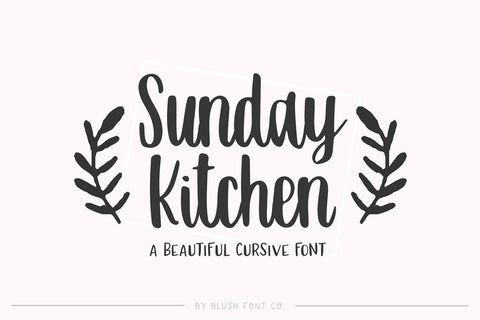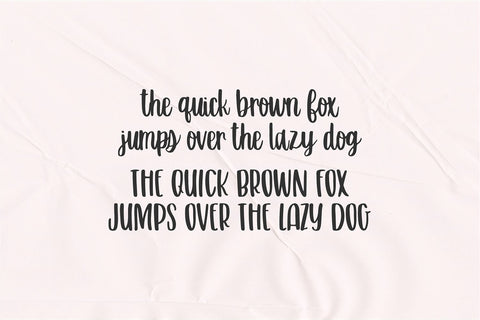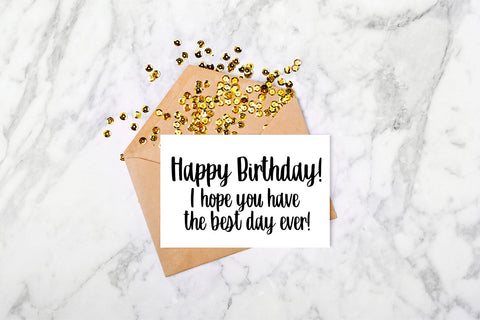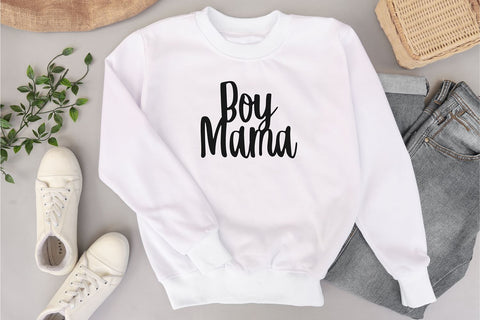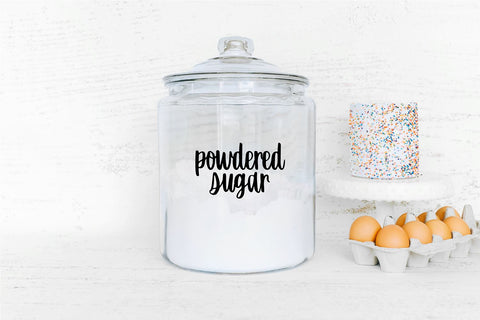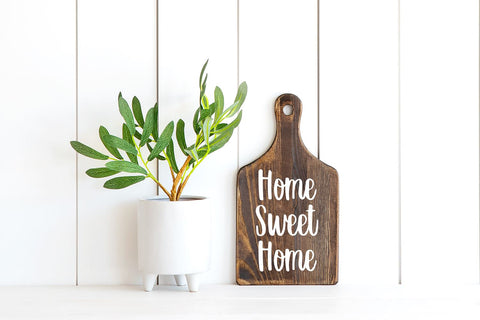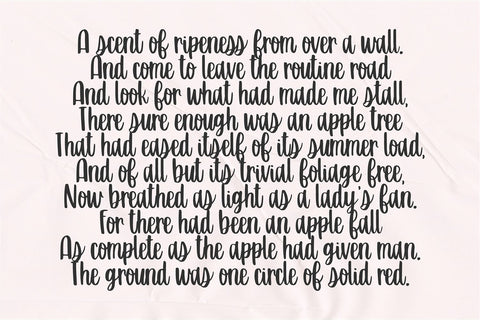
Sunday Kitchen Brush Script
"Sunday Kitchen"
Sunday Kitchen is an authentic painted brush script font.
Font includes: Upper and lowercase glyphs, numbers, and basic punctuation.